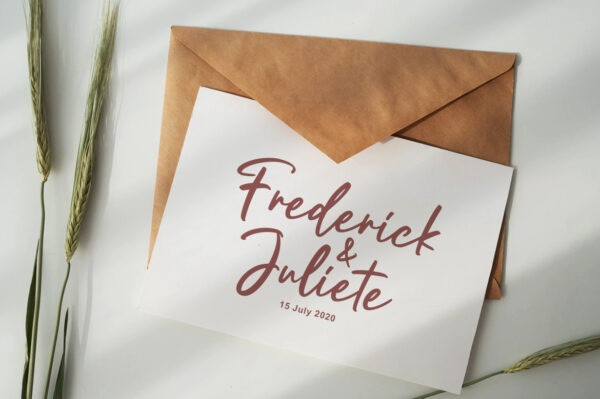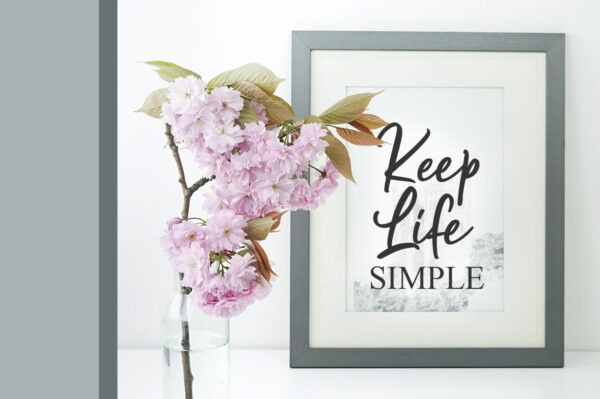
Ouvality Handwritten Font
Ouvality is a modern handwritten font which will look beautiful on invitations, greeting cards, branding materials, quotes, posters, and more.